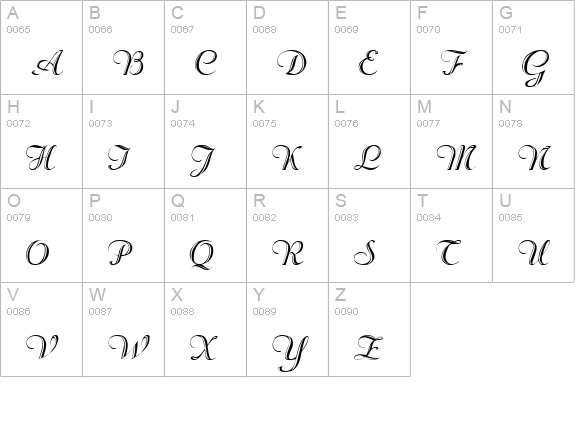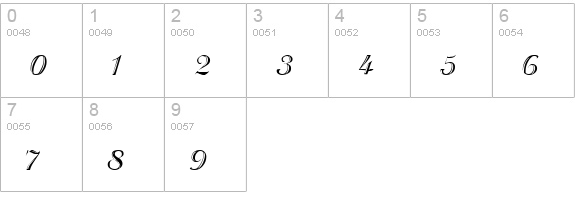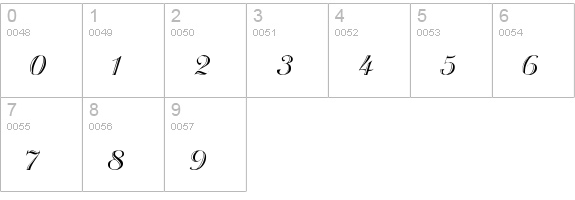
Penelope Font Details
Penelope font is a beautifully crafted typeface that exudes elegance and sophistication. With its graceful curves and timeless appeal, Penelope is the perfect choice for projects that require a touch of class. This versatile font can be used for a variety of design purposes, from wedding invitations to branding materials. What sets Penelope font apart is not just its stunning aesthetics, but also the fact that it is available for free download at FontsMarket.com. This means that you can access this exquisite font without any cost, making it an excellent option for designers and creatives looking to elevate their work without breaking the bank. Whether you're working on a personal project or a client commission, Penelope font will add a touch of luxury and sophistication to your designs. Download it for free today and see for yourself the magic that Penelope font can bring to your creative endeavors.